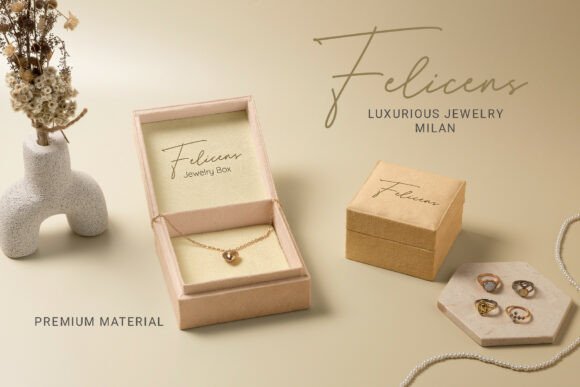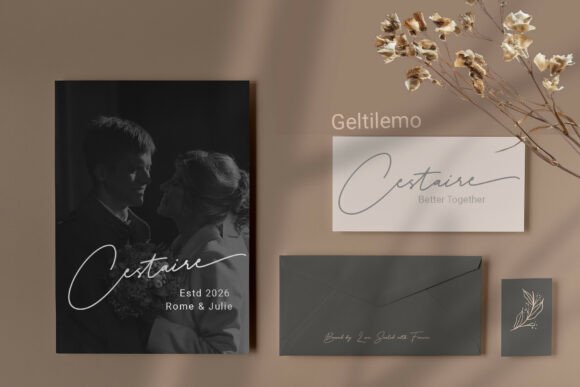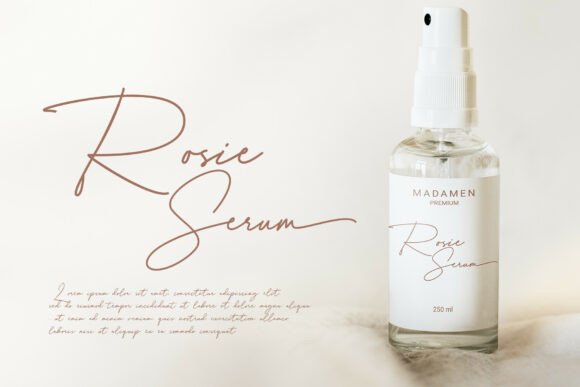
Introduction to Delyra Script Font
Elevate your brand with the effortless grace of Delyra Script, a premier modern signature font.
Characterized by its fluid, hand-drawn strokes and organic rhythm, this typeface captures the essence of a personal handwritten signature With its sweeping loops and elegant terminals, Delyra is the definitive choice for high-end boutique logos, wedding stationery, sophisticated social media branding, and professional watermarks.
Key Features of Delyra Script Font
Why Choose Delyra Script Font?
Delyra Script Font offers exceptional quality and versatility, making it a valuable addition to your design toolkit. Whether you’re creating for personal projects or commercial use, Delyra Script Font delivers professional results.